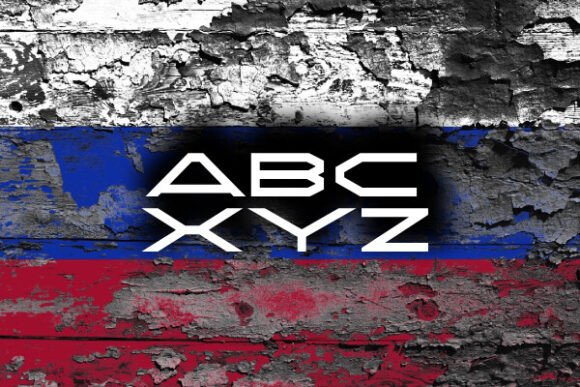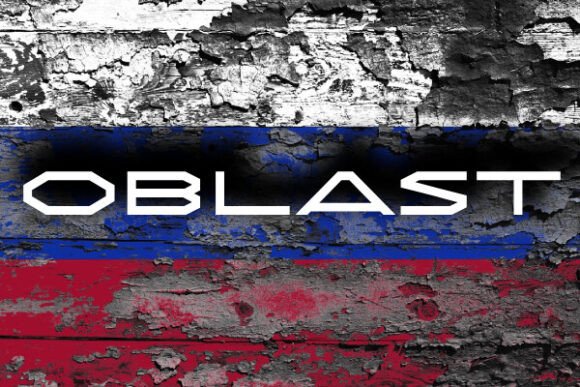
Introducing Azanka Font: The Elegant Sans Serif Typeface for Your Designs
Are you a designer or crafter looking for a font that can elevate your creative projects? Look no further than Azanka Font, an elegant sans serif typeface that is perfect for a wide range of designs. In this article, we’ll explore the features and benefits of Azanka Font, and show you how it can be used to create stunning posters, flyers, t-shirts, and more.
What is Azanka Font?
Azanka Font is a modern sans serif typeface that is designed to be both elegant and versatile. Its clean lines and simple shapes make it easy to read and highly legible, while its stylish curves and subtle nuances give it a touch of sophistication. Whether you’re creating a bold poster, a sleek flyer, or a casual t-shirt design, Azanka Font is the perfect choice.
Key Features of Azanka Font
- Elegant Design: Azanka Font features a sleek and modern design that is perfect for creating elegant and sophisticated designs.
- Sans Serif: The font’s sans serif design makes it highly legible and easy to read, even at small sizes.
- Versatile: Azanka Font can be used for a wide range of designs, from posters and flyers to t-shirts and more.
- Highly Customizable: The font comes in a range of styles and weights, making it easy to customize to suit your design needs.
Using Azanka Font in Your Designs
Azanka Font is incredibly versatile, and can be used in a wide range of designs. Here are just a few ideas to get you started:
Posters
Azanka Font is perfect for creating eye-catching posters that grab attention and communicate your message clearly. Its bold and elegant design makes it ideal for use in headlines, titles, and body copy.
Flyers
Whether you’re promoting a event, a product, or a service, Azanka Font is a great choice for your flyer design. Its clean and simple design makes it easy to read and understand, even at small sizes.
T-Shirts
Azanka Font is also perfect for creating stylish and modern t-shirt designs. Its elegant design and highly legible font make it ideal for use in quotes, phrases, and logos.
Tips for Using Azanka Font
Here are a few tips for getting the most out of Azanka Font:
- Experiment with Different Weights: Azanka Font comes in a range of weights, from light to bold. Experiment with different weights to find the one that works best for your design.
- Use it with Other Fonts: Azanka Font pairs well with a range of other fonts. Try using it with a serif font for a classic look, or with a script font for a more elegant feel.
- Pay Attention to Kerning: As with any font, kerning is important to ensure that your text looks professional and polished. Take the time to adjust the kerning to get the best results.
Azanka Font is an elegant sans serif typeface that is perfect for designers and crafters looking to elevate their creative projects. Its versatile design, highly legible font, and range of styles and weights make it ideal for use in a wide range of designs, from posters and flyers to t-shirts and more. With these tips and ideas, you’ll be well on your way to creating stunning designs with Azanka Font.